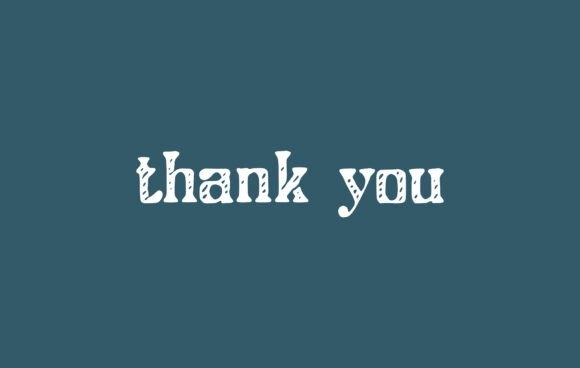
Introducing Fireweed Font: The Ultimate Handwritten Font for Creative Projects
Are you looking for a font that can add a touch of romance and elegance to your creative projects? Look no further than Fireweed Font, an authentic handwritten font that is sure to become your new favorite. With its unique blend of sophistication and playfulness, Fireweed Font is the perfect choice for anyone looking to take their designs to the next level.
The Story Behind Fireweed Font
Fireweed Font is more than just a font – it’s a work of art. Expertly designed to capture the essence of handwritten script, this font is perfect for anyone looking to add a personal touch to their designs. Whether you’re a graphic designer, a crafty DIY enthusiast, or a social media influencer, Fireweed Font is the perfect tool to help you express your creativity.
What Makes Fireweed Font So Special?
So, what sets Fireweed Font apart from other fonts on the market? For starters, its authentic handwritten style gives it a unique and organic feel that is hard to replicate with digital fonts. Additionally, Fireweed Font is incredibly legible, making it perfect for use as both title and body text. This means that you can use it to create stunning headlines, social media posts, and even lengthy articles that are easy to read and visually appealing.
Endless Design Possibilities with Fireweed Font
One of the best things about Fireweed Font is its versatility. This font can be used for a wide range of design projects, from magazine headlines and social media graphics to branding materials and wedding invitations. The possibilities are truly endless, and with Fireweed Font, you can let your creativity run wild.
Magazine Headlines and Articles
Fireweed Font is the perfect choice for magazine headlines and articles. Its elegant and sophisticated style makes it perfect for fashion, lifestyle, and entertainment publications. Whether you’re designing a cover or creating an editorial spread, Fireweed Font is sure to make your content stand out.
Social Media Graphics
In today’s digital age, social media is an essential platform for businesses and individuals alike. With Fireweed Font, you can create stunning social media graphics that are sure to grab the attention of your followers. From Instagram posts to Facebook updates, Fireweed Font is the perfect choice for anyone looking to add a touch of personality to their online presence.
Branding Materials
Your brand is more than just a logo – it’s a reflection of your values, personality, and style. With Fireweed Font, you can create branding materials that truly reflect your brand’s unique identity. From business cards to letterheads, Fireweed Font is the perfect choice for anyone looking to create a cohesive and stylish brand image.
Wedding Invitations and Stationery
Wedding invitations and stationery are a great way to showcase your personal style and elegance. With Fireweed Font, you can create beautiful and romantic wedding invitations, save-the-date cards, and other stationery that will set the tone for your special day.
Why Choose Fireweed Font?
So, why should you choose Fireweed Font over other fonts on the market? Here are just a few reasons why Fireweed Font stands out:
- Authentic Handwritten Style: Fireweed Font features an authentic handwritten style that gives it a unique and organic feel.
- Legibility: Fireweed Font is incredibly legible, making it perfect for use as both title and body text.
- Versatility: Fireweed Font can be used for a wide range of design projects, from magazine headlines to wedding invitations.
- Elegance and Sophistication: Fireweed Font features an elegant and sophisticated style that is perfect for anyone looking to add a touch of romance and elegance to their designs.
In conclusion, Fireweed Font is an exceptional handwritten font that is sure to become your new favorite. With its authentic handwritten style, legibility, and versatility, Fireweed Font is the perfect choice for anyone looking to add a touch of romance and elegance to their designs. Whether you’re a graphic designer, a crafty DIY enthusiast, or a social media influencer, Fireweed Font is the perfect tool to help you express your creativity and take your designs to the next level.